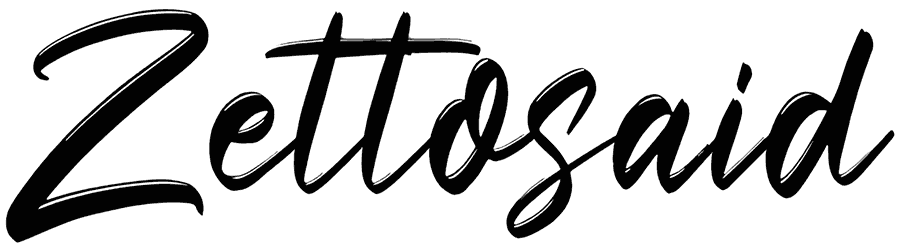
Zettosaid Font
Friendly, playful, and attractive, Zettosaid is a brush font with a complete set of characters and also international languages. This font looks fantastic on every project that needs a natural handwriting touch to provide an outstanding view. Make sure to check before downloading because it might be illegible. It’s a good option for greeting cards, book covers, party invitations, quotes, and advertising materials.